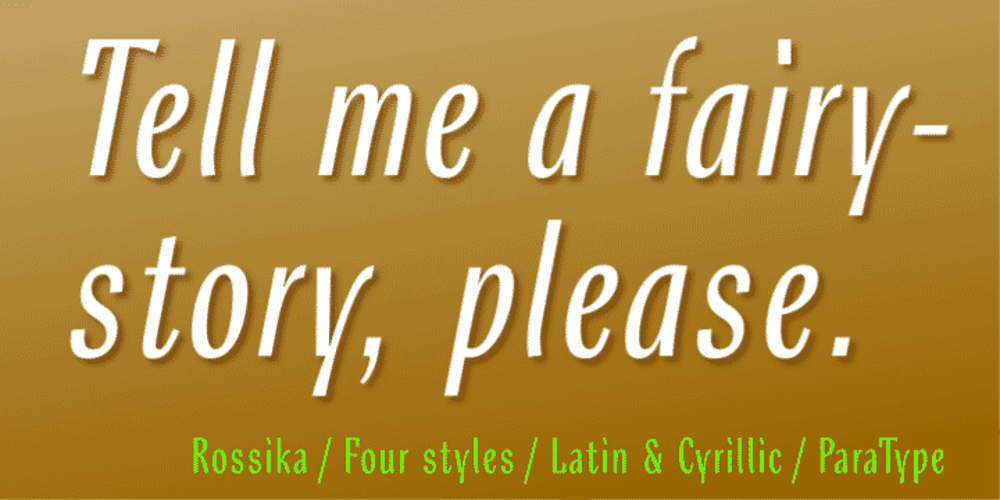
Rossika
Rossika font
Rossika Font Family was designed by Oleg Karpinsky and published by ParaType. Rossika contains 4 styles and family package options. Rossika is a four-style typeface designed by Oleg Karpinsky in 2002-2004 for the ParaType company. The general design and some letterforms were borrowed from antique Russian typefaces of XV-XVIII centuries. For example, the upper Cyrillic N has a diagonal stem, a tail of Ц character is attached in the center unlike major contemporary designs. Some characters have alternatives. There are several Latin and Cyrillic ligatures. Rossika is intended for logos, headlines and short text blocks: posters, calendars, post cards, diplomas, certificates and the like.